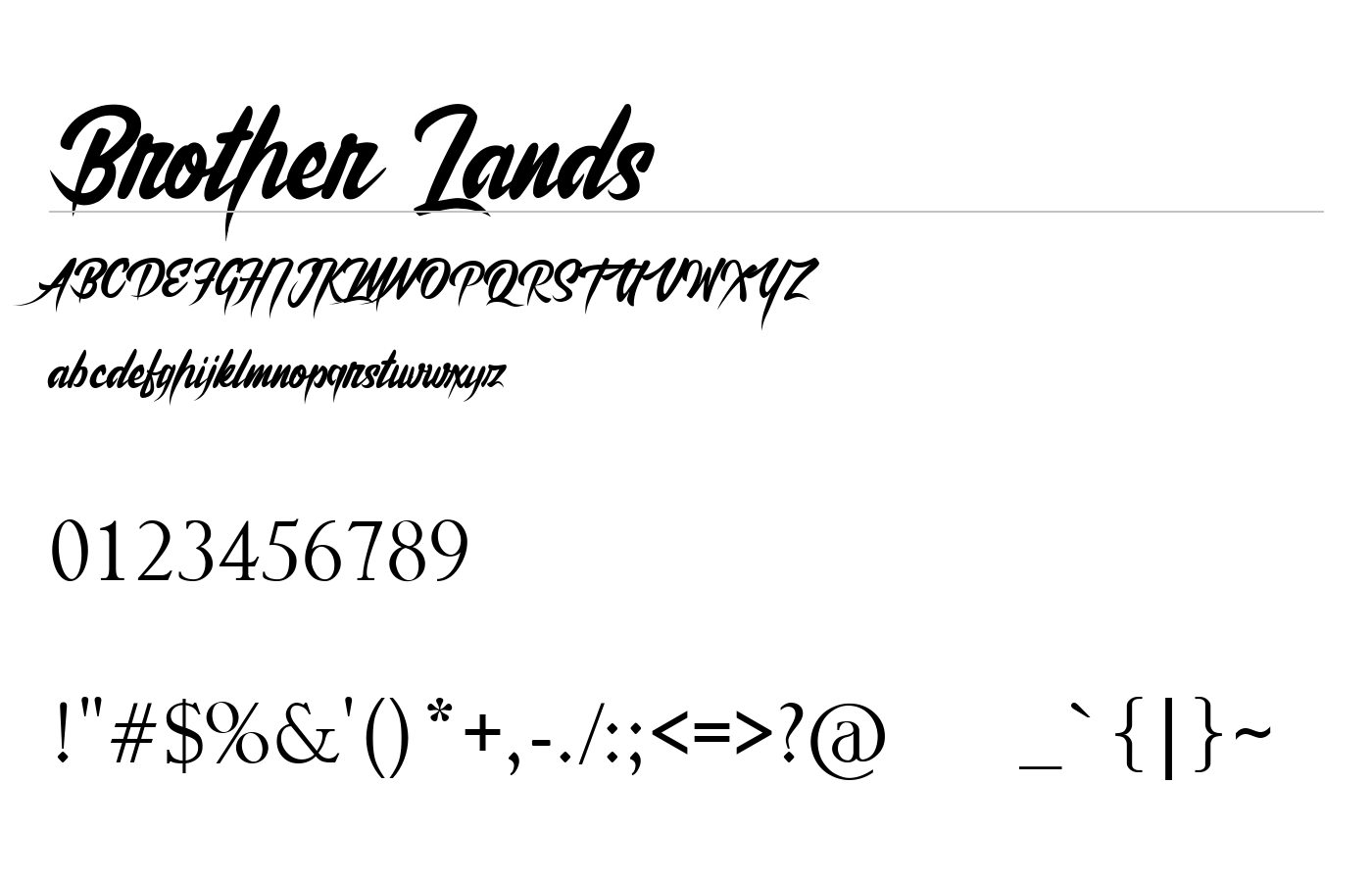
Brother Lands is a lively and dynamic script font featuring sharp, flowing strokes that give it an energetic and expressive character. Its bold, handwritten style with high contrast and elegant curves makes it perfect for eye-catching logos, branding, and creative designs that seek a modern yet personal touch. This font works best in headlines or display use, adding a sense of personality and flair.
Brother Lands Font